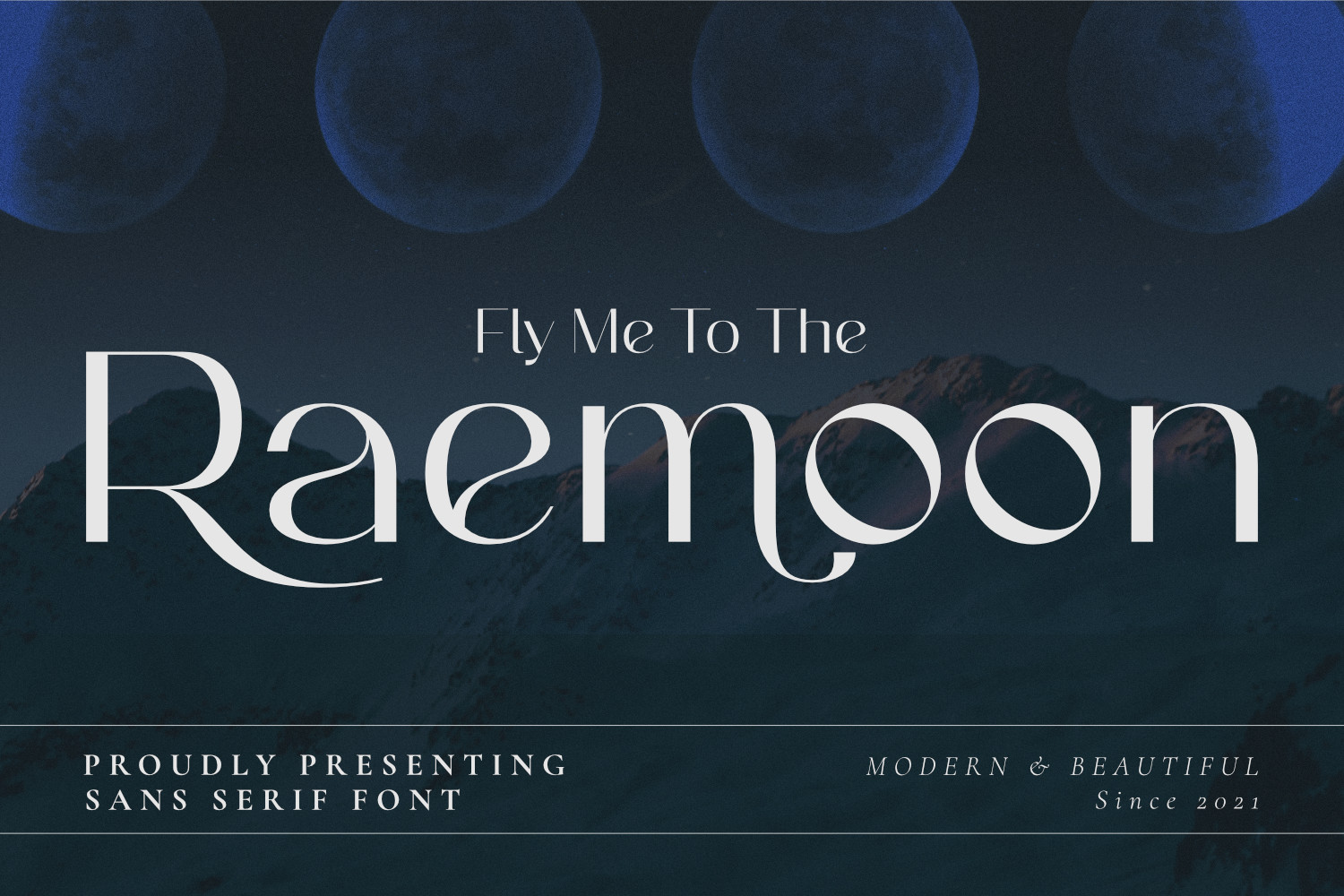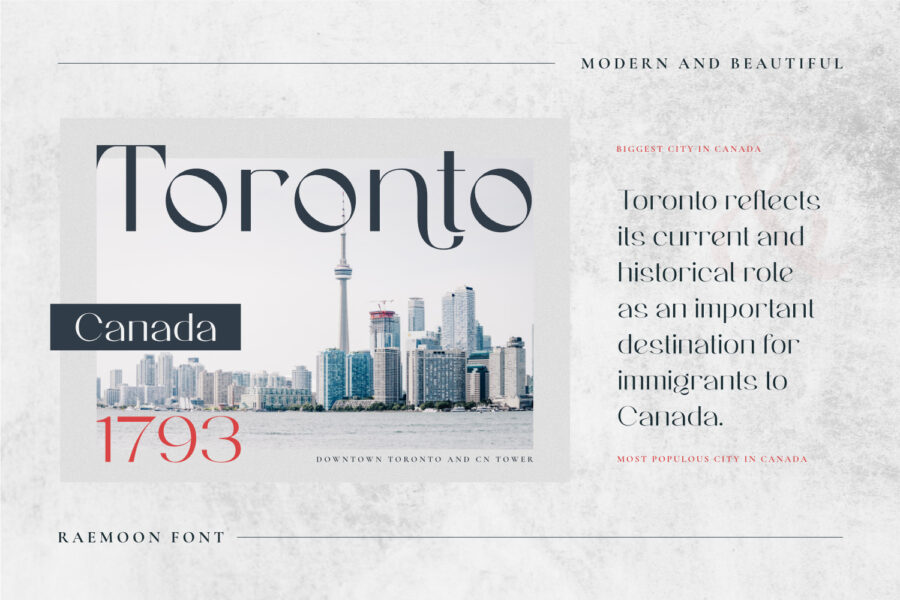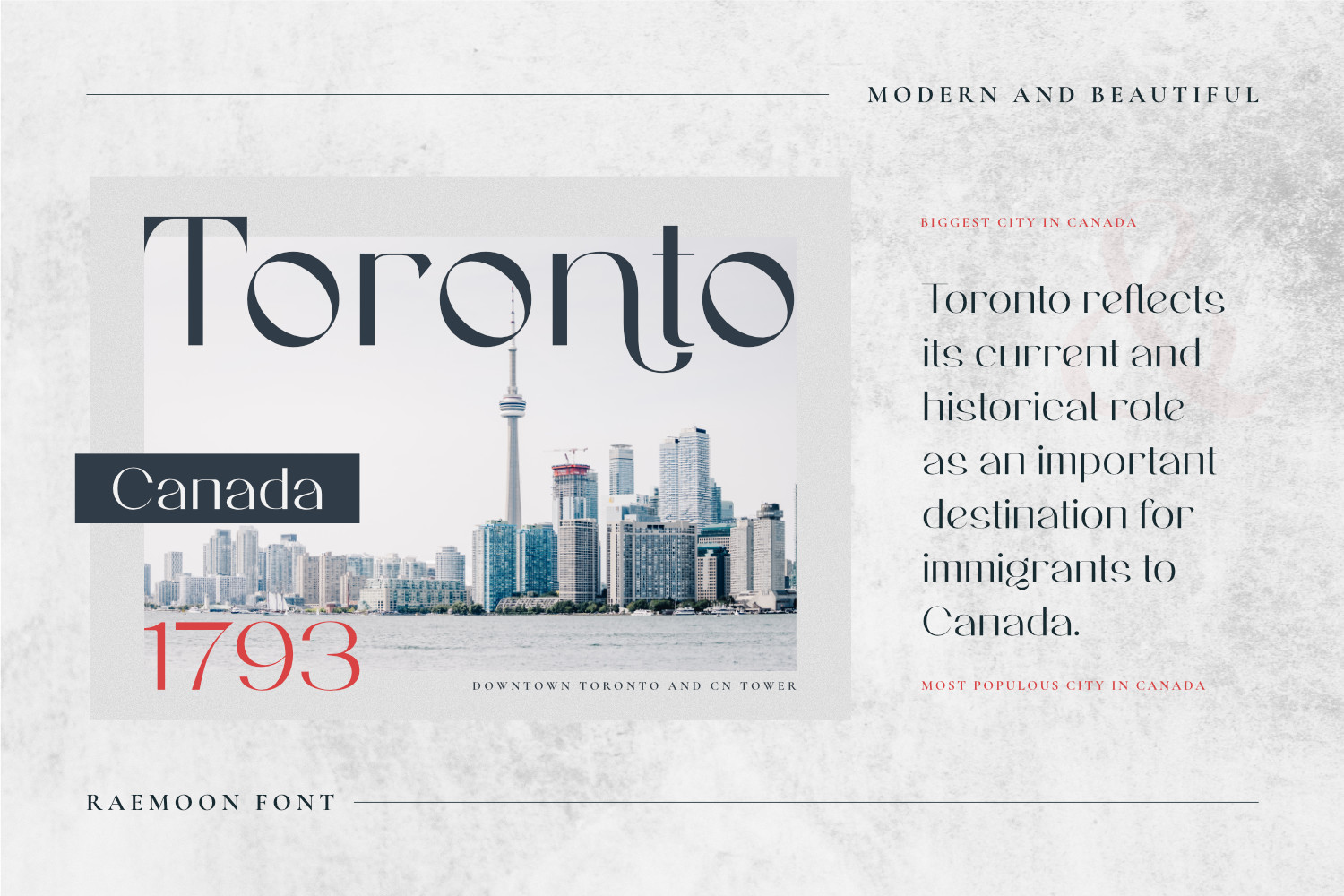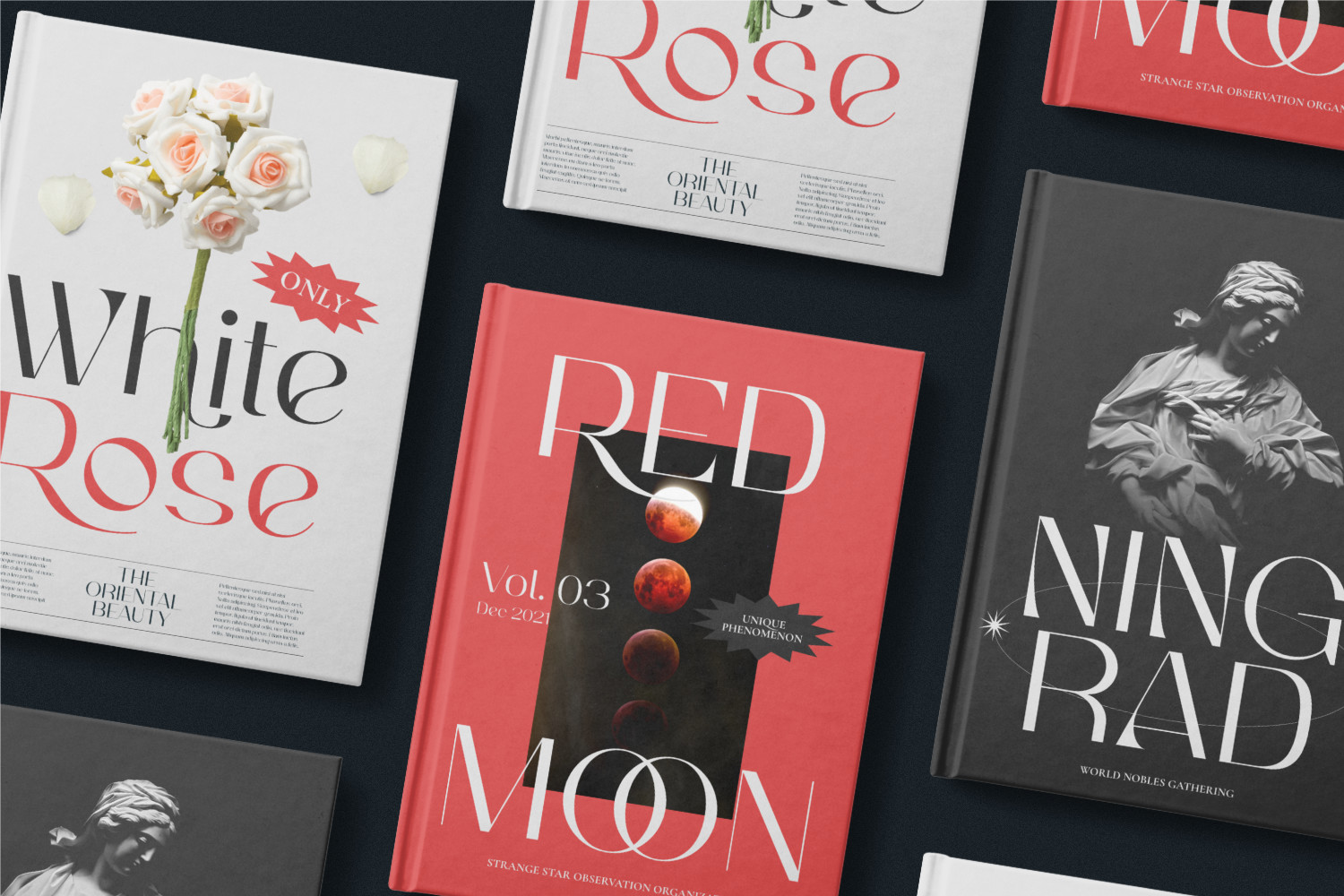
Raemoon is a refined and sophisticated sans serif font that balances elegance with a distinctively modern flair. Its sleek letterforms and gentle curves bring a graceful rhythm to any composition, making it perfect for editorial layouts, packaging, luxury branding, or high-end fashion titles. The font features a stylish set of alternates and ligatures that provide endless creative combinations and enhance typographic personality.
From its thin strokes to dramatic alternates, Raemoon is ideal for making a lasting impression in both print and digital formats. The contemporary contrast and geometric influence lend a clean yet artistic feel, making it suitable for lookbooks, magazine covers, beauty products, and upscale identity design.